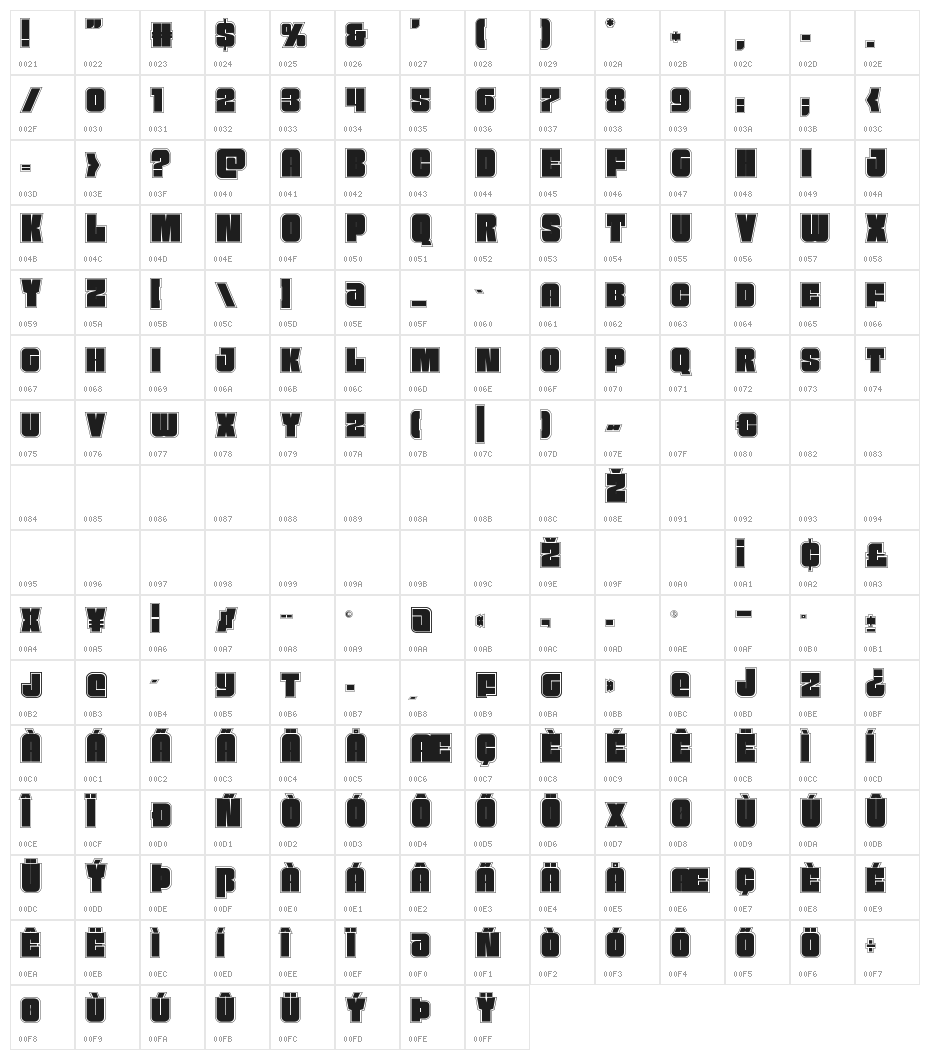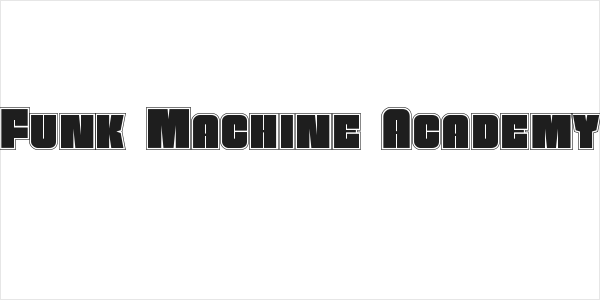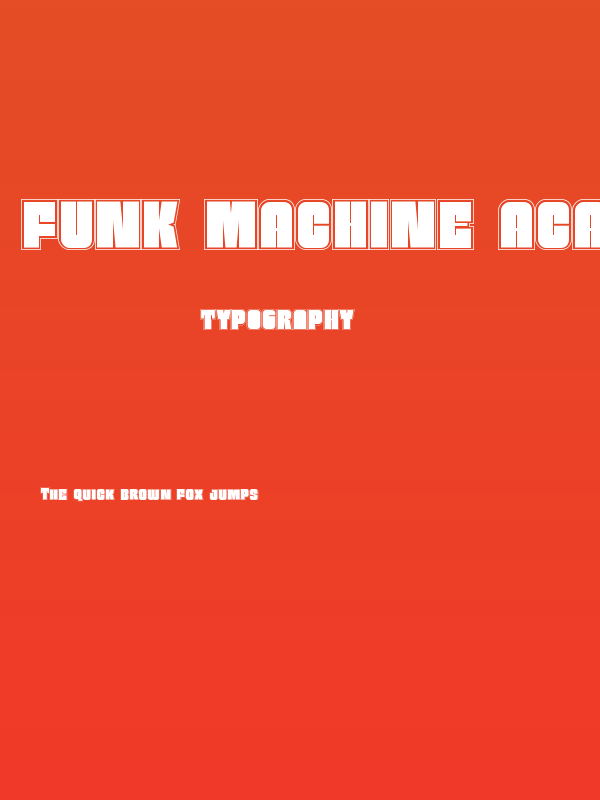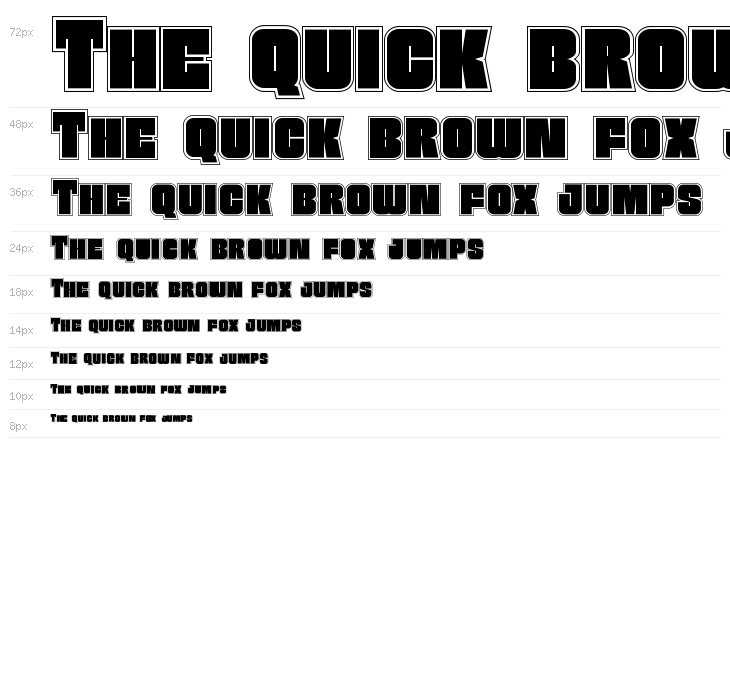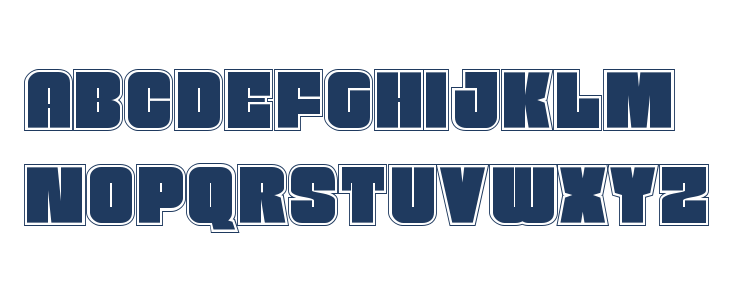
Funk Machine Academy Font
Funk Machine Academy Description
This font features a bold, impactful design with a strong presence. Each character is outlined, creating a striking contrast between the thick, solid interior and the bold outline. The geometric shapes and uniform thickness give it a modern and industrial feel, making it ideal for attention-grabbing headlines or logos. The uppercase letters are particularly dominant, with a blocky, robust appearance that commands attention. The numbers and special characters maintain the same bold style, ensuring consistency across all uses.
| Proposed Projects | Ideal for posters, logos, and branding materials that require a strong visual impact. |